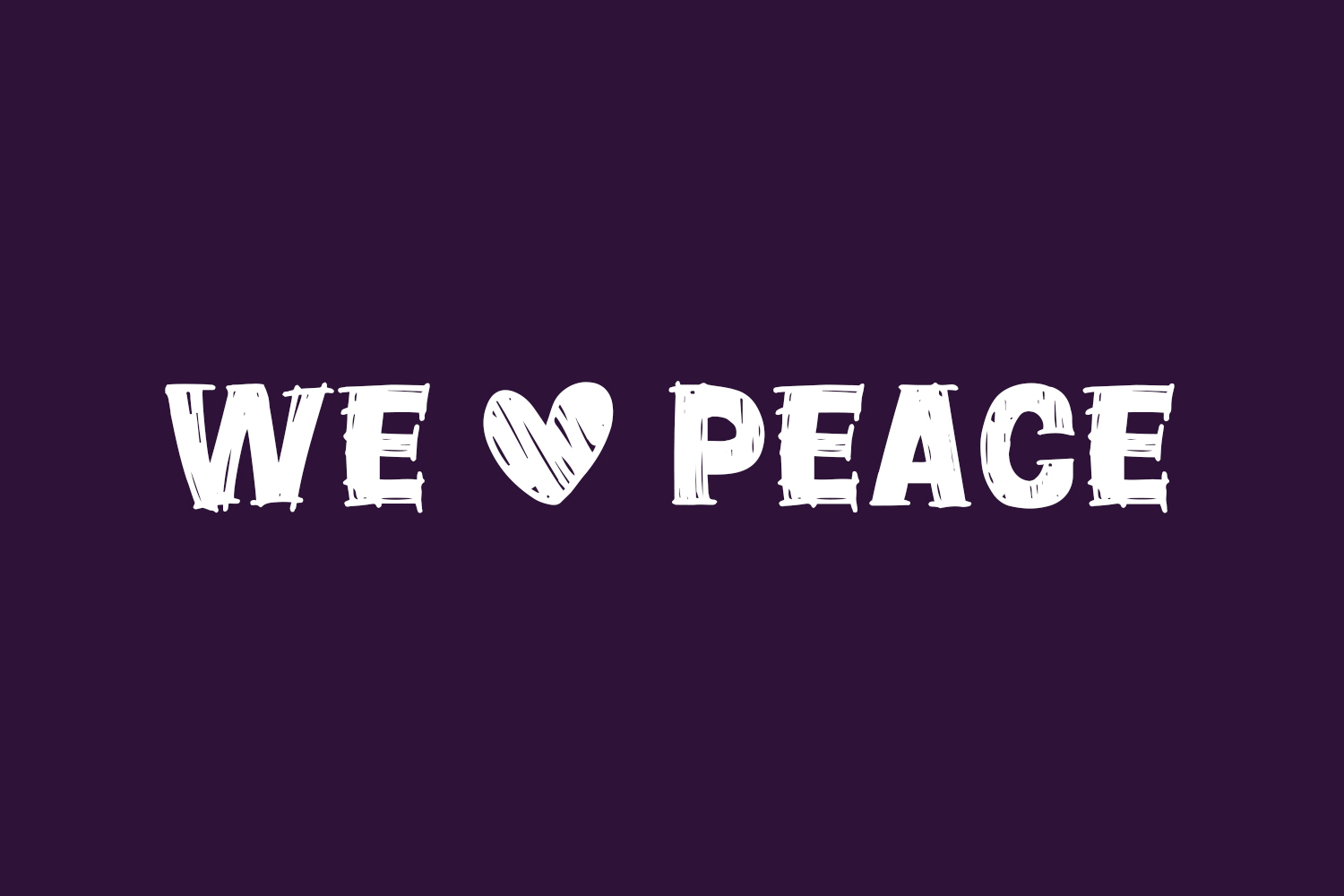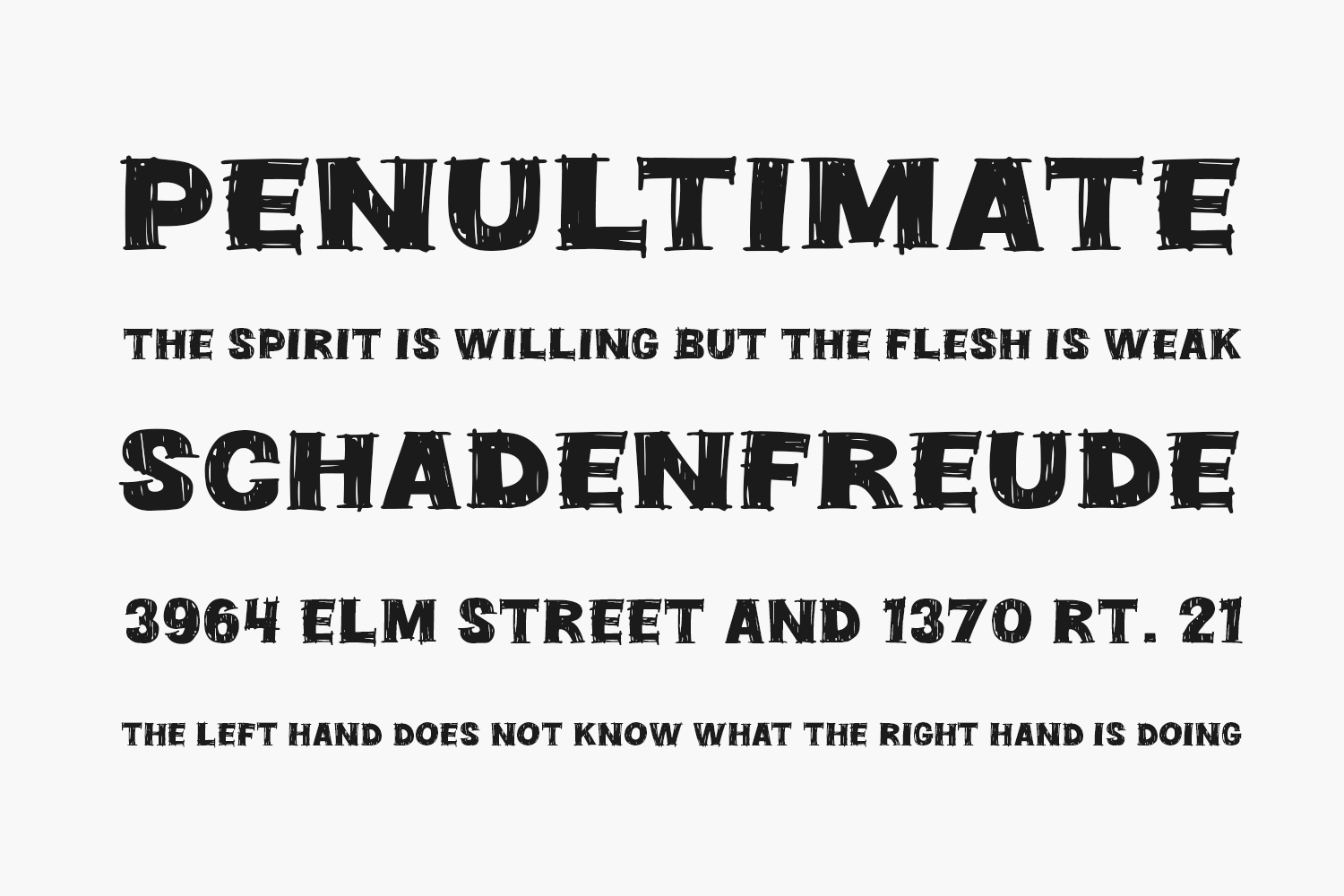
Discover the charm of We Love Peace Free Font, a contemporary and charming display font ideal for posters, logos, magazines, book covers, banners, and more! Elevate your designs with this incredible font, suitable for a diverse range of projects. Incorporate it into your creative endeavors and experience how it effortlessly enhances their visual appeal, making them truly memorable. We Love Peace Free Font is free for personal use only. Please purchase the full version for commercial use.